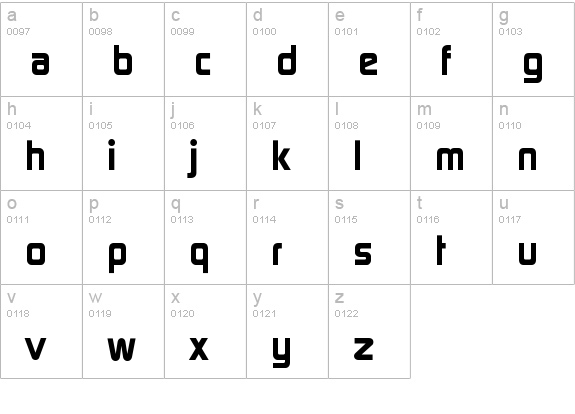
Digital-Bold Font Details
Digital-Bold is a strong, high-contrast variant in the Digital typeface family \xE2\x80\x94 well suited to headlines, attention-grabbing titles, and strong calls-to-action.
Introducing Digital-Bold font, a modern and versatile typeface that exudes sophistication and style. With its bold and impactful design, Digital-Bold is perfect for making a statement in any creative project. This font is ideal for a wide range of design applications, from branding to editorial design, posters, and more. The best part? Digital-Bold font is completely free to download at FontsMarket.com. Take advantage of this amazing offer and add this stunning font to your design arsenal today. Embrace the boldness and creativity that Digital-Bold font brings to your projects, and watch your designs come to life with this sleek and professional typeface.